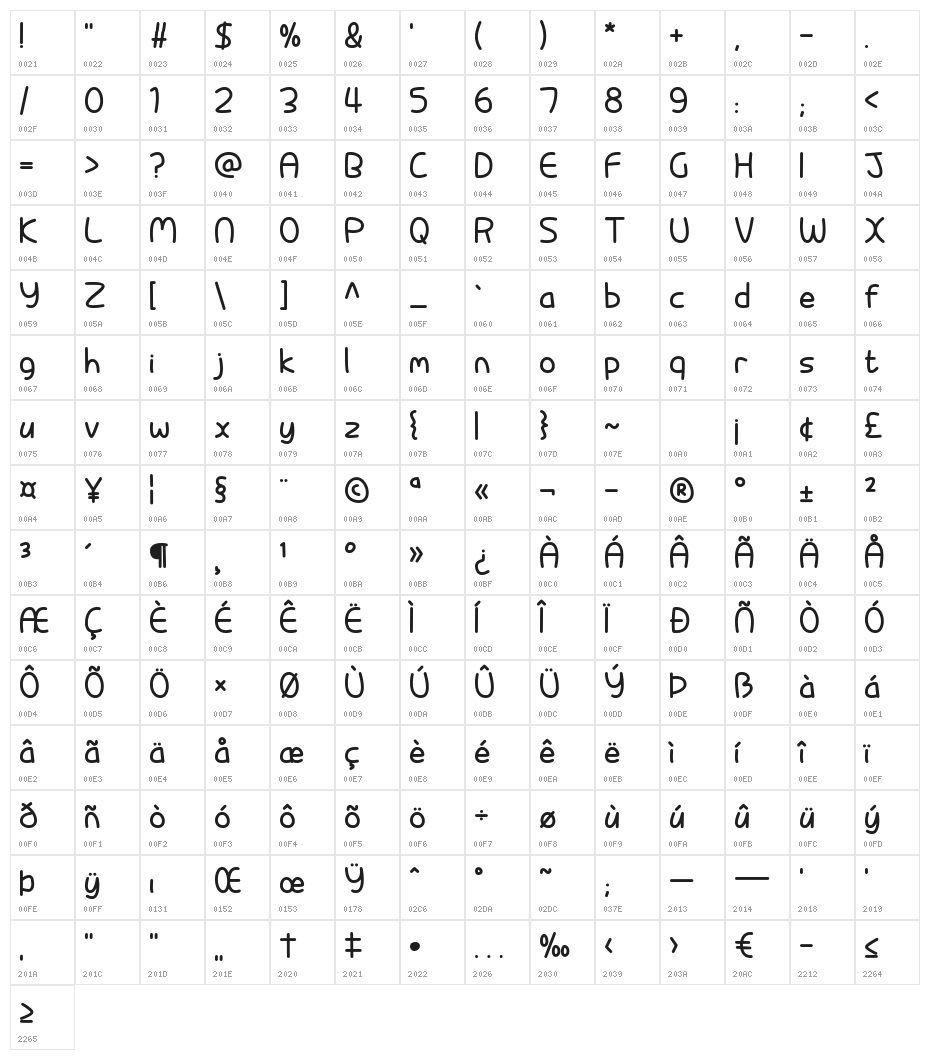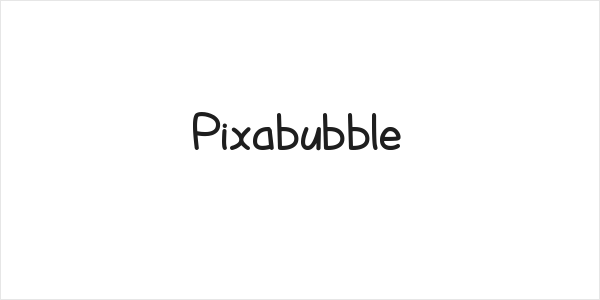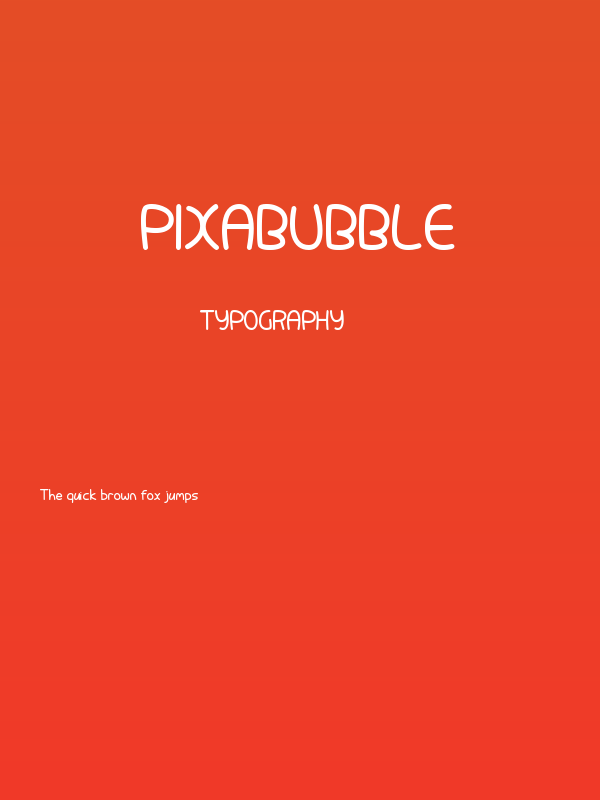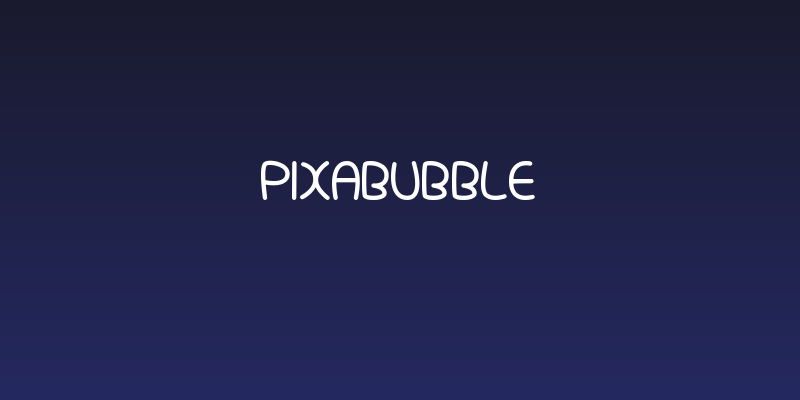
Pixabubble Font
Pixabubble Description
This playful and rounded font features a casual, handwritten style that exudes a friendly and approachable vibe. The characters are uniformly thick, with smooth curves and a consistent stroke width, giving it a clean and modern appearance. The letters are slightly elongated, adding a touch of whimsy, while maintaining legibility. The numbers and special characters follow the same design principles, ensuring a cohesive look across all text elements. This font is versatile, suitable for both digital and print media, and can easily capture attention with its unique charm.
| Use Case | Headlines, Logos, Social Media Graphics |
| Proposed Projects | Ideal for children's books, playful branding, casual invitations, and social media graphics. |